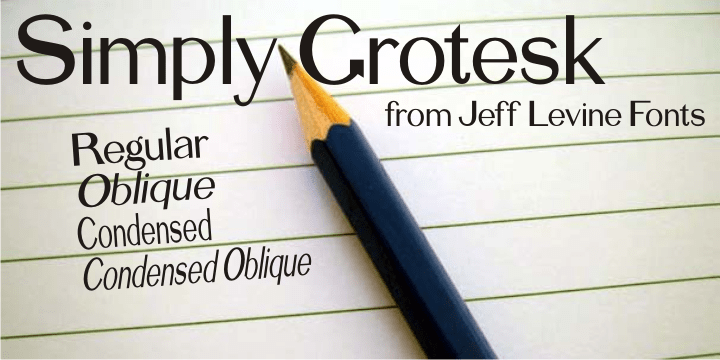
Simply Grotesk
Up until the advent of vinyl plotters, computers and a myriad of other typesetting and printing changes the world has experienced over the past few decades, the art of hand lettering flourished. An early 1900s book on show card writing displayed a nice example of a Grotesk typeface (a popular style of sans serif of the time). This has been redrawn digitally as Simply Grotesk JNL and is available in four varieties - regular, oblique, condensed and condensed oblique.